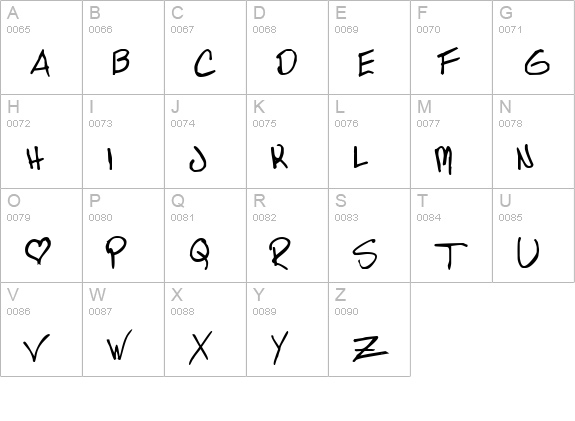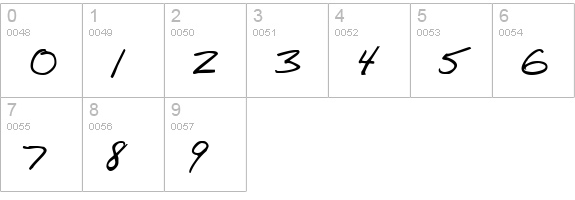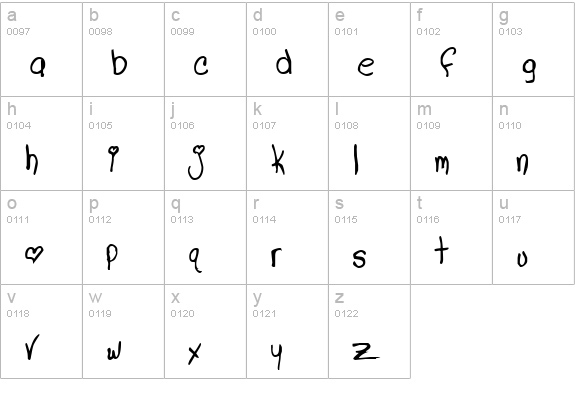
Linda's Lament Font Details
Linda's Lament font is a beautifully crafted typeface that exudes elegance and sophistication. Its delicate curves and intricate details make it perfect for adding a touch of charm to any project. This versatile font is ideal for use in invitations, greeting cards, branding, and more. Best of all, Linda's Lament font is available for free! You can easily download this stunning font at FontsMarket.com and start using it in your designs right away. Don't miss out on the opportunity to enhance your projects with this exquisite typeface.